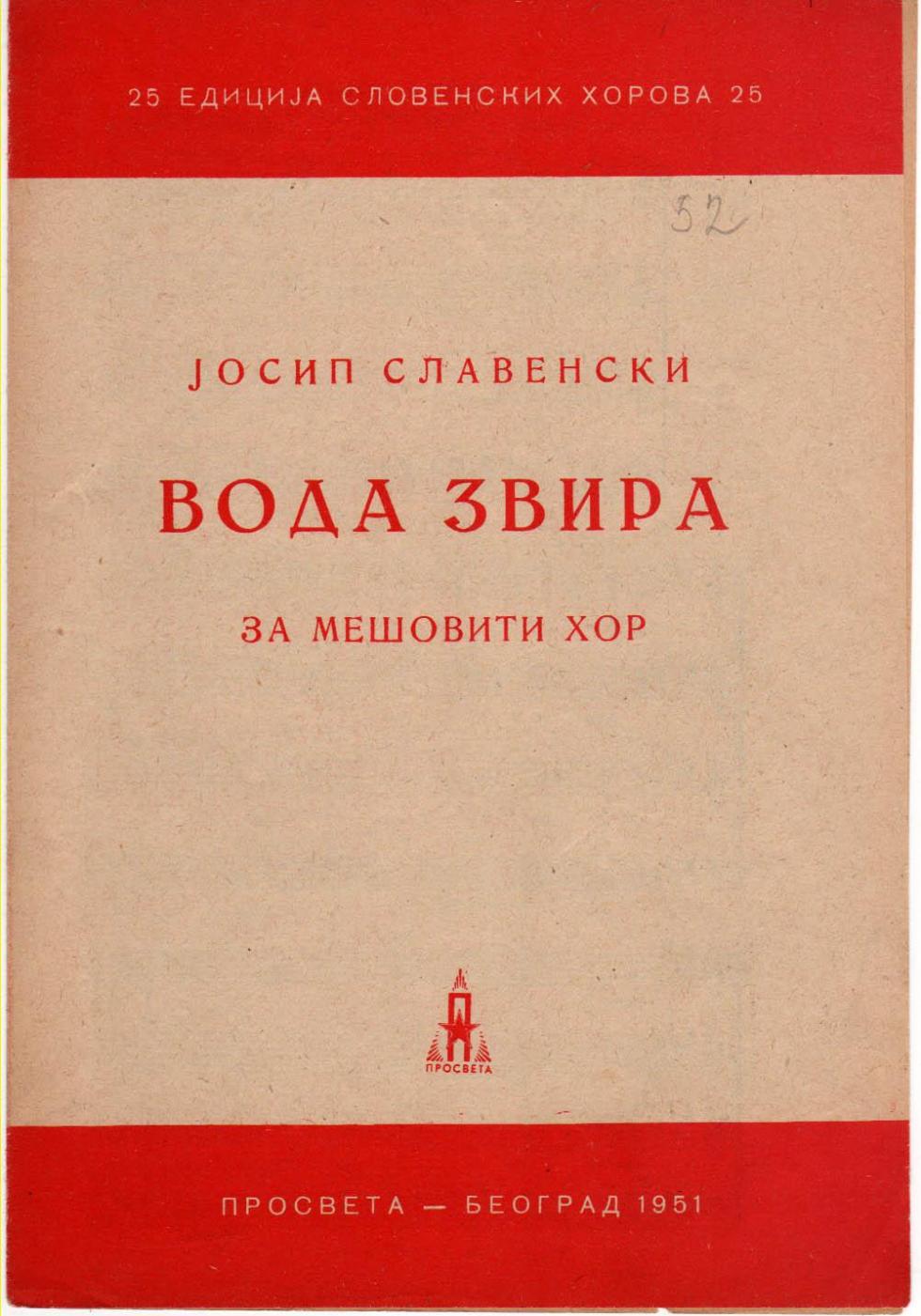
Yugoslav notebook for choirs from the 50s
Hi there! I'm looking desperately for the cover font. It is written in Cyrillic, so any online application is having difficulties to recognise the font. It is from an old Yugoslav notebook for choirs from the 50s. In Cyrillic you write it like ВОДА ЗВИРА and in Latin you would write VODA ZVIRA. It looks very familiar to me though. It seems to be a classic serif font, very common, but I just can't find it.
Hi Riccardo! Thank you so much! This is already such a good hint! Belwe Antiqua or Bellwether Antique I could find. But strange there's is no cyrillic version. Anyway, You're my hero of the day!!! All best, Aleks